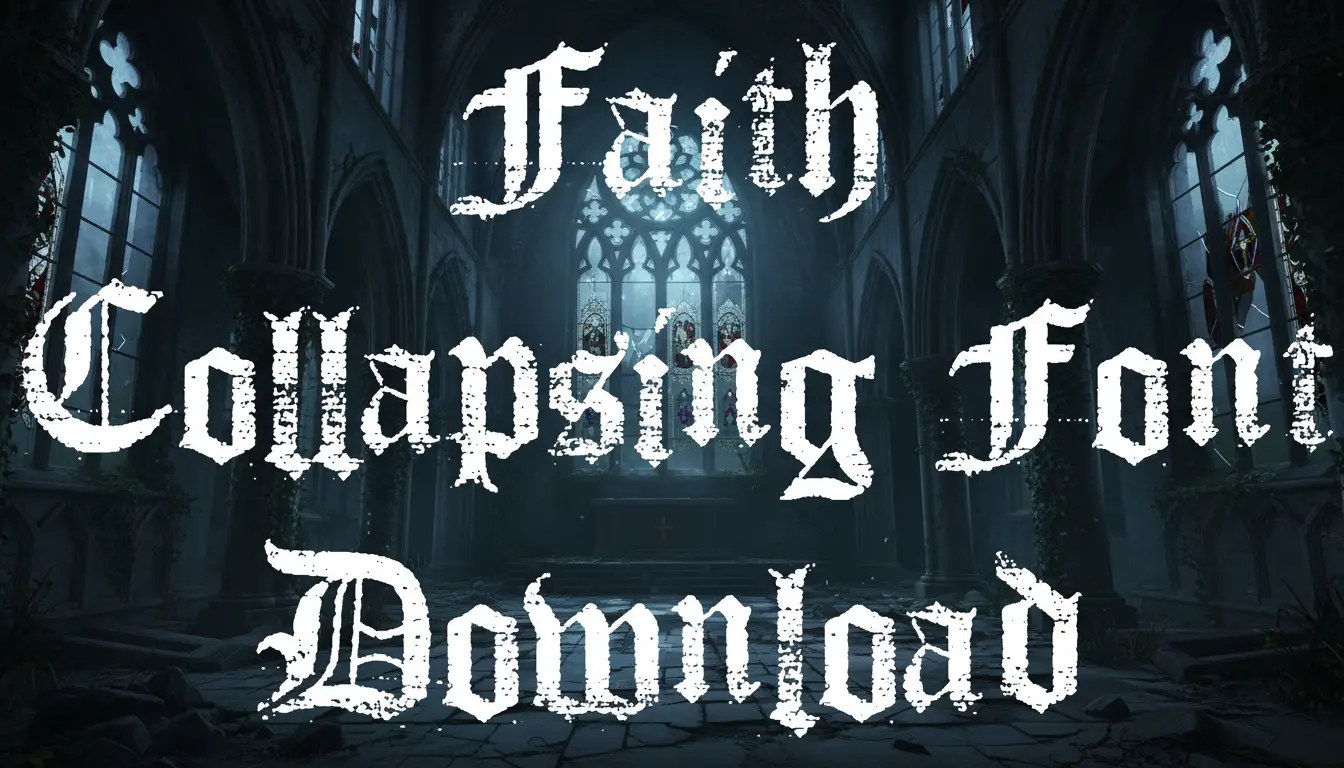
Faith Collapsing is an intense, gritty display typeface designed by the artist Mandy Levine under the studio pseudonym nihilschiz. Released in 2006, it is a highly distinct cross between a messy, distressed typewriter font and a classic Old English medieval blackletter script. According to the creator, the font’s name was directly inspired by a song by the industrial metal band Ministry.
Faith Collapsing
Faith Collapsing is a gothic font (2006).